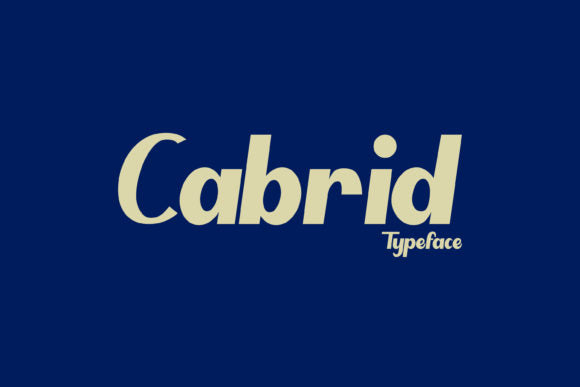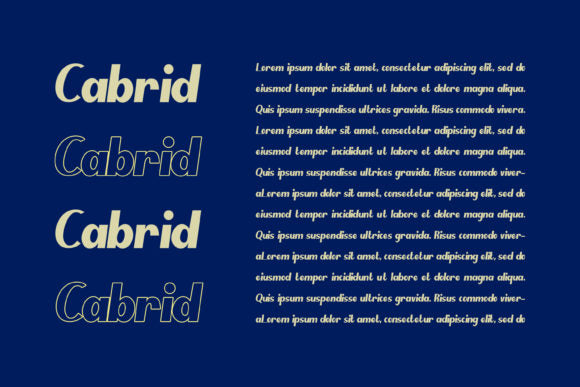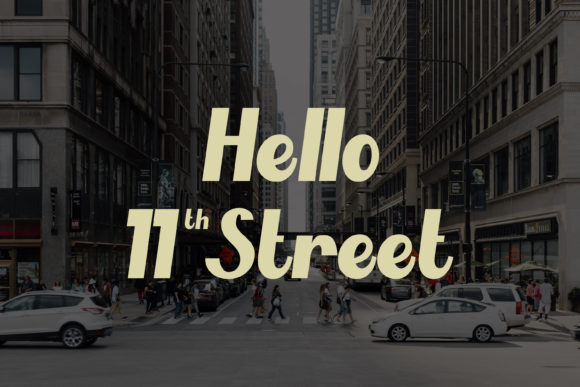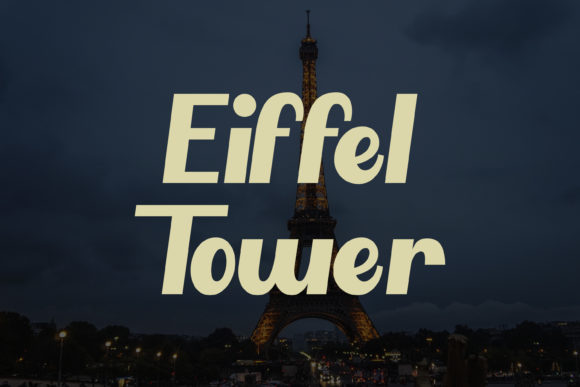
Cabrid Type
Cabrid is a bold retro-inspired display typeface that combines vintage charm with modern versatility. Featuring smooth curves, strong italic styling, and eye-catching letterforms, Cabrid is designed to bring energy, personality, and nostalgia to your creative projects.
Inspired by classic advertising, signage, and mid-century typography, Cabrid delivers a distinctive look that stands out in logos, posters, packaging, branding, apparel designs, and social media graphics. Its bold character and dynamic flow make it perfect for headlines and display text where visual impact matters most.
Whether you're creating a retro brand identity, designing promotional materials, or crafting stylish merchandise, Cabrid offers the perfect blend of vintage aesthetics and contemporary usability.
Features
- Retro-inspired display typeface
- Bold and stylish italic design
- Smooth curves and strong visual presence
- Perfect for headlines and large text
- Easy to read and highly versatile
- Suitable for print and digital projects
- Distinctive vintage character
Perfect For
- Logo Design
- Retro Branding
- Posters & Flyers
- Product Packaging
- T-Shirt Designs
- Signage & Advertising
- Social Media Graphics
- Event Promotions